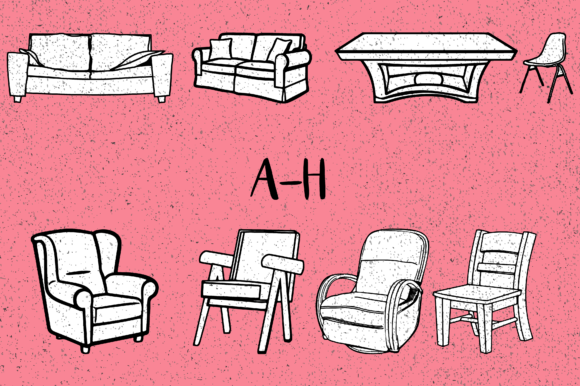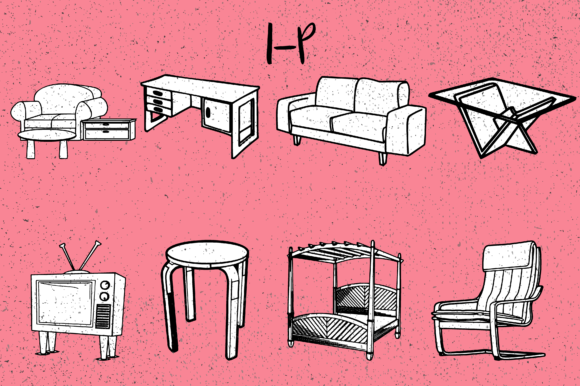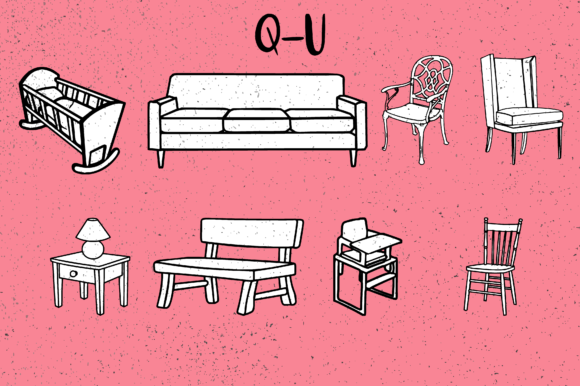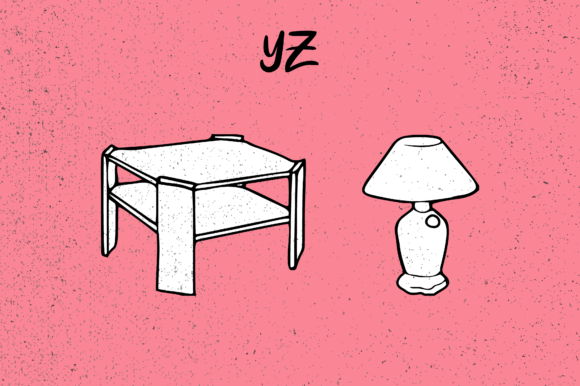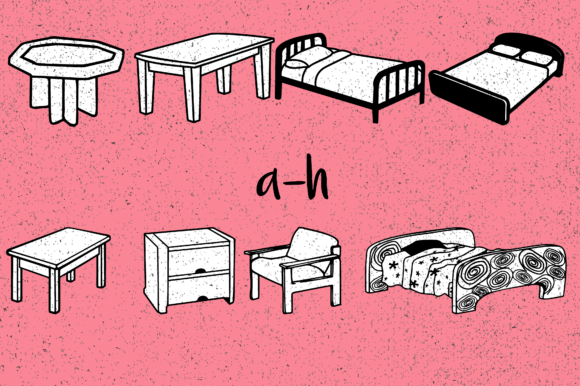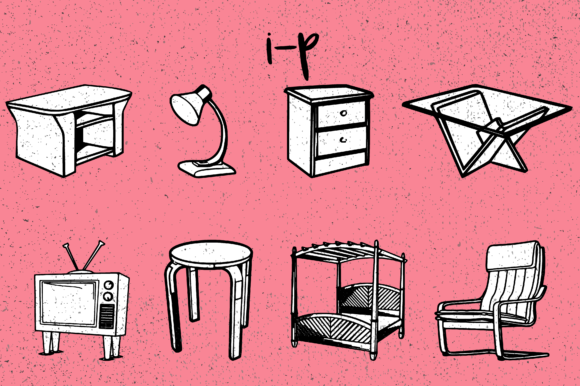
Furniture Font – Free Download
Introduction to Furniture Font
Furniture is a dingbats typeface designed to help you generate up to 62 unique furniture doodles by typing letters and numbers.
Key Features of Furniture Font
Why Choose Furniture Font?